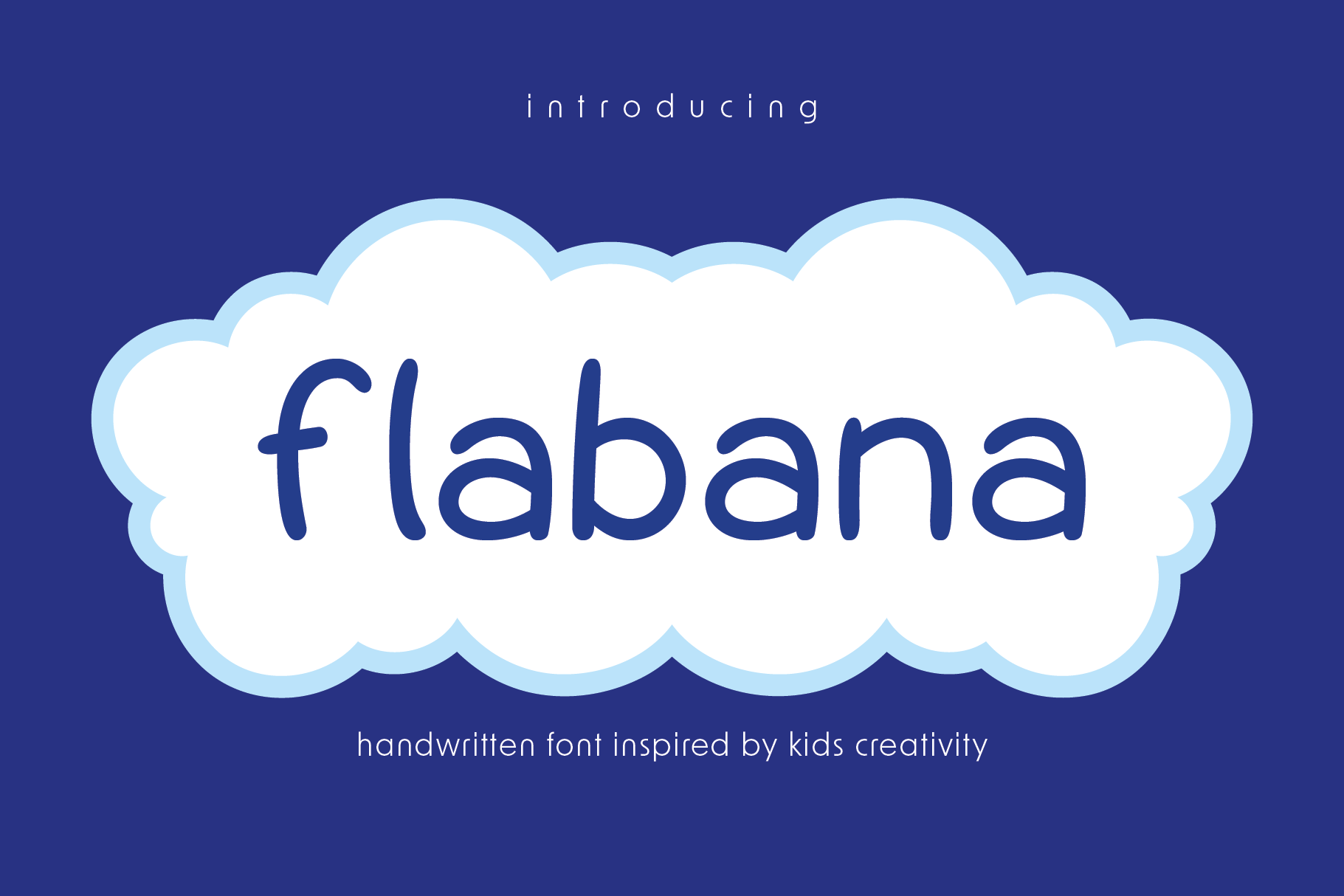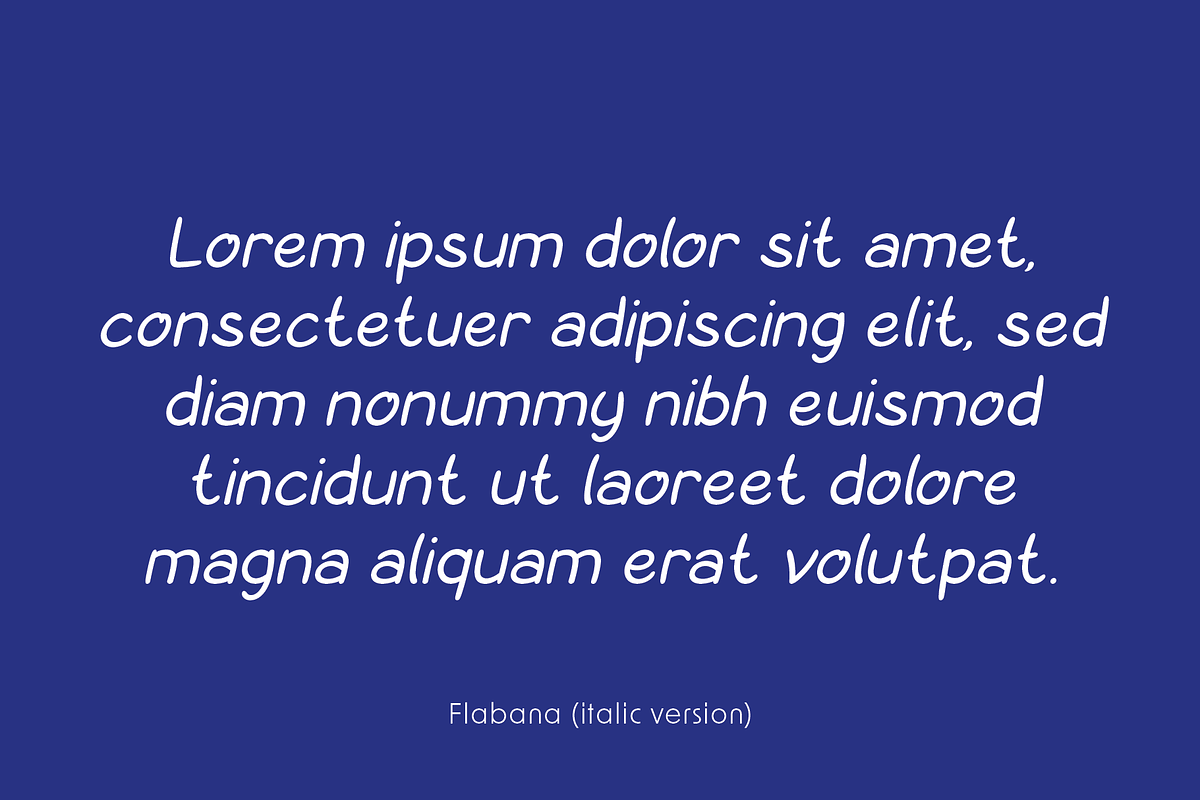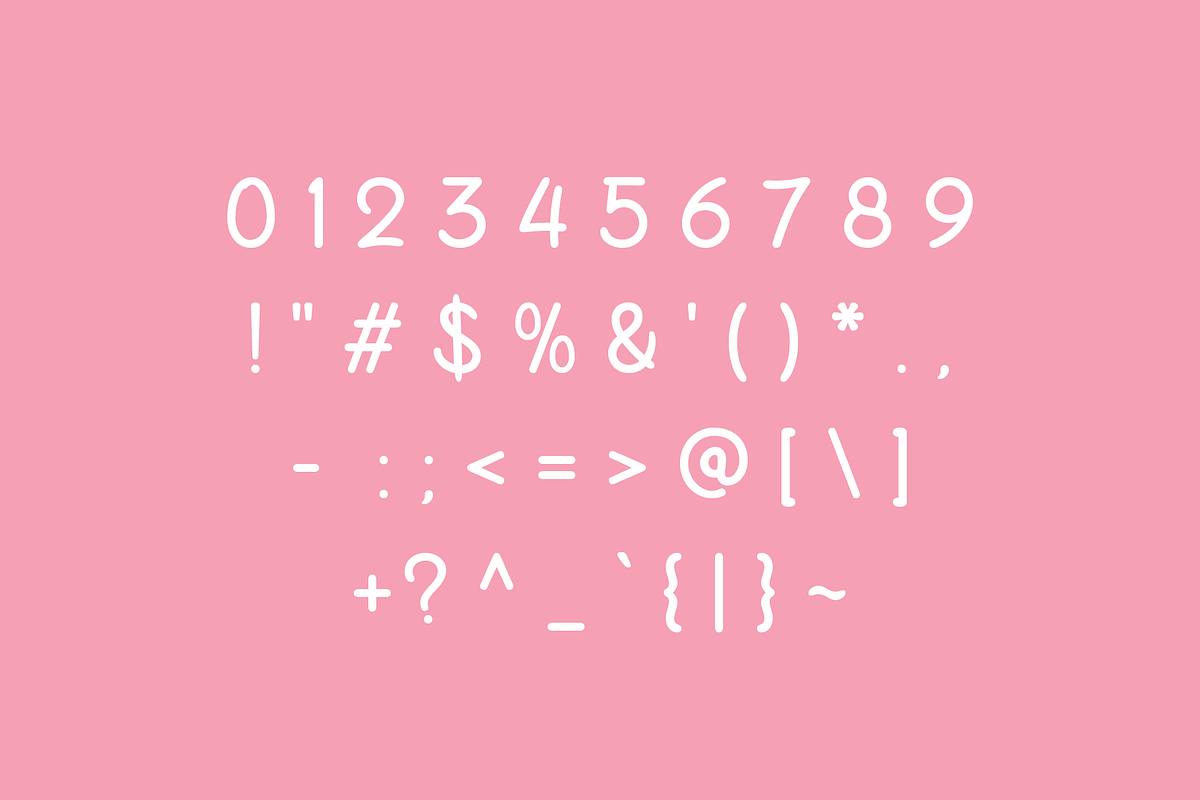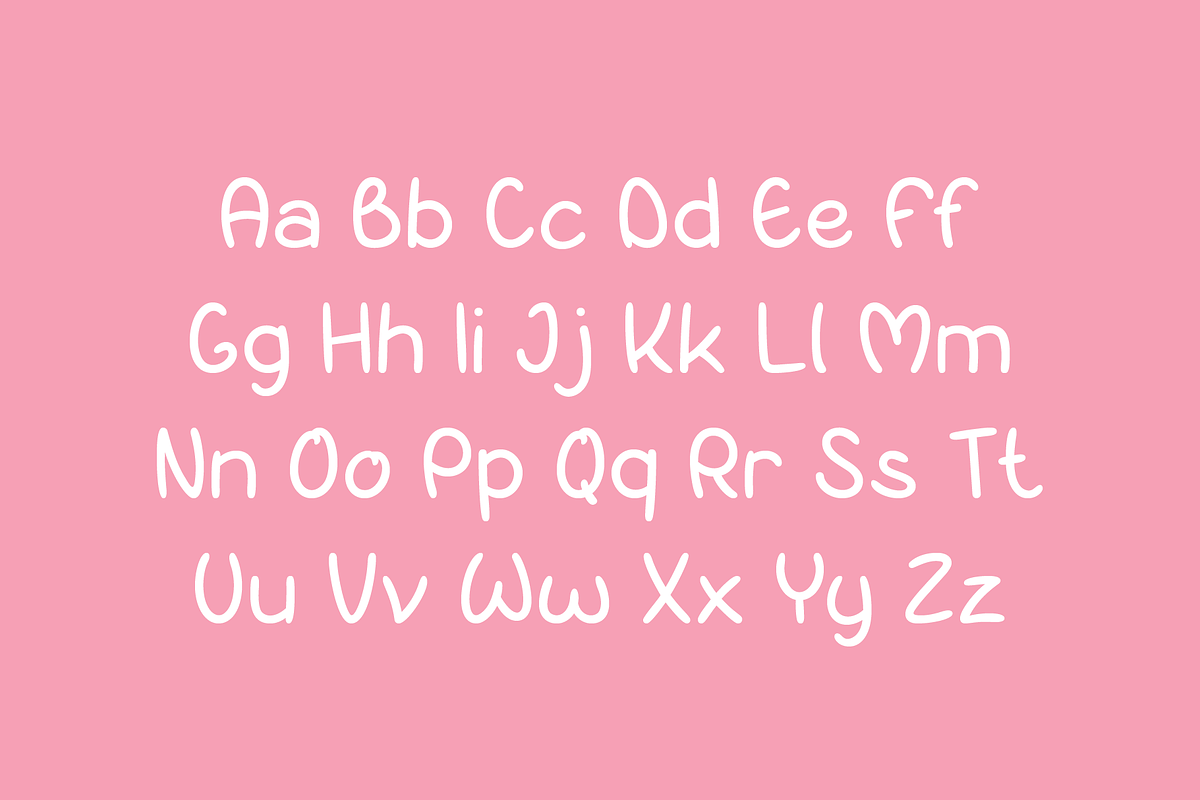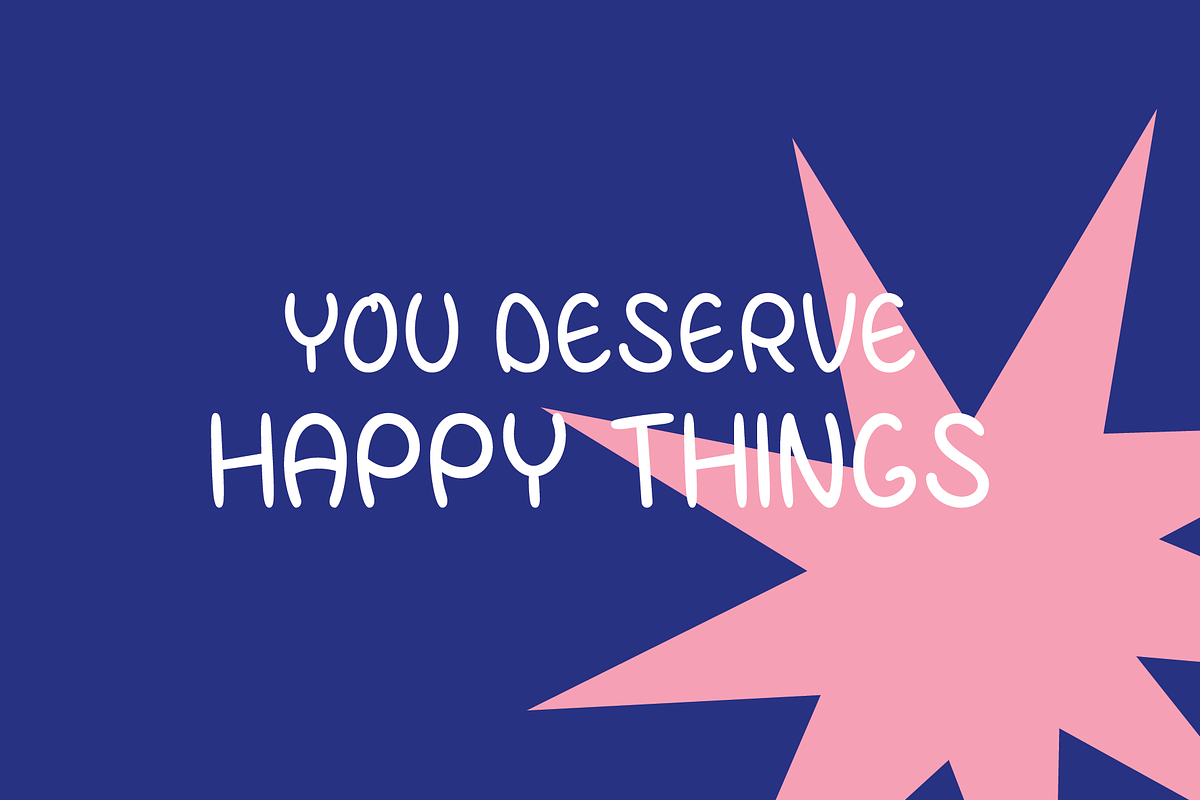
Flabana - Bubble Handwritten Font
Introducing Flabana, the delightful hand-drawn font with bubbly, rounded shapes that bring a sense of joy and fun to any project. Perfect for children’s books, toy packaging, baby clothing, posters, quotes, and more, Flabana’s playful design captures the imagination and hearts of young audiences. With a complete set of uppercase and lowercase letters, numbers, and punctuation, this versatile font ensures your creative ideas come to life with ease.